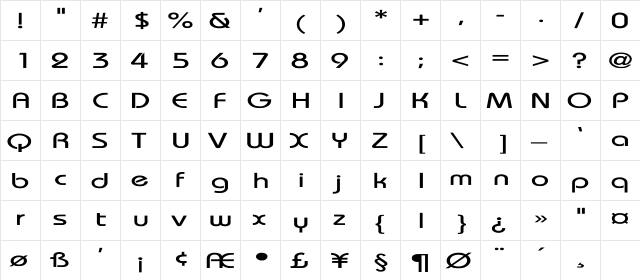
Bauhaus-Thin Extended Regular
Design Context for Bauhaus-Thin Extended Typeface
Bauhaus-Thin Extended takes a measured approach to typography — its balanced proportions and neutral character make it a reliable workhorse for both digital and print work. The delicate stroke weight brings airiness and refinement to layouts.